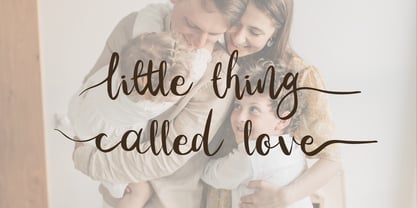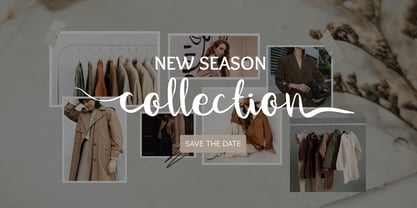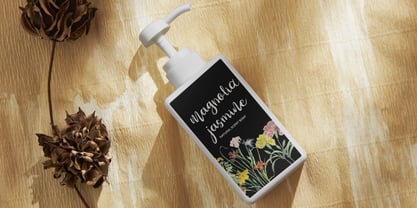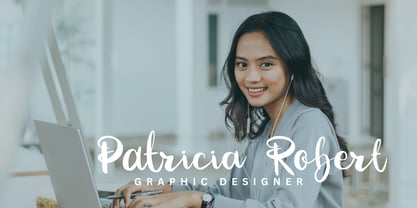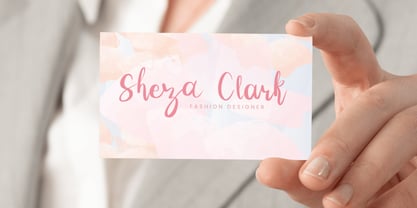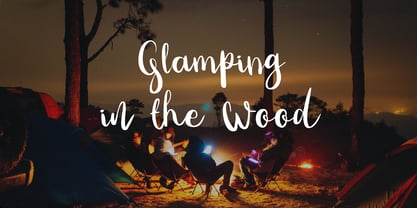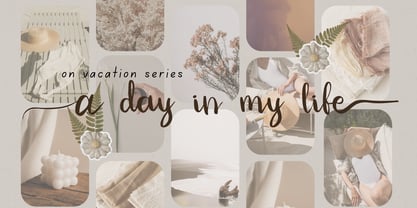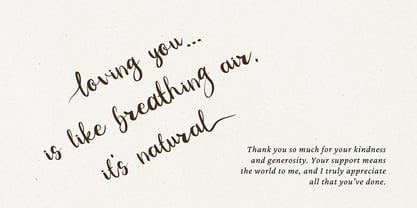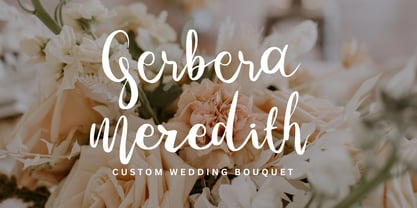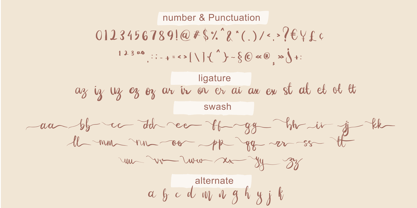
Ghaist Mardliah
by Fromletterel
The Ghaist Mardliah Font Family was designed by Lia Almuknisa and published by Fromletterel. Ghaist Mardliah contains 1 styles. More about this family
A lettering-style font inspired by hand-drawn typography, featuring carefully crafted letterforms, artistic strokes, and a custom-made appearance. It combines the charm of handmade lettering with polished design, making it ideal for logos, branding, packaging, quotes, and creative projects.
Featured with ligatures, swashes and few alternates characters to give the font a more authentic handmade appearance.
Designers: Lia Almuknisa
Foundry: Fromletterel
Ghaist Mardliah